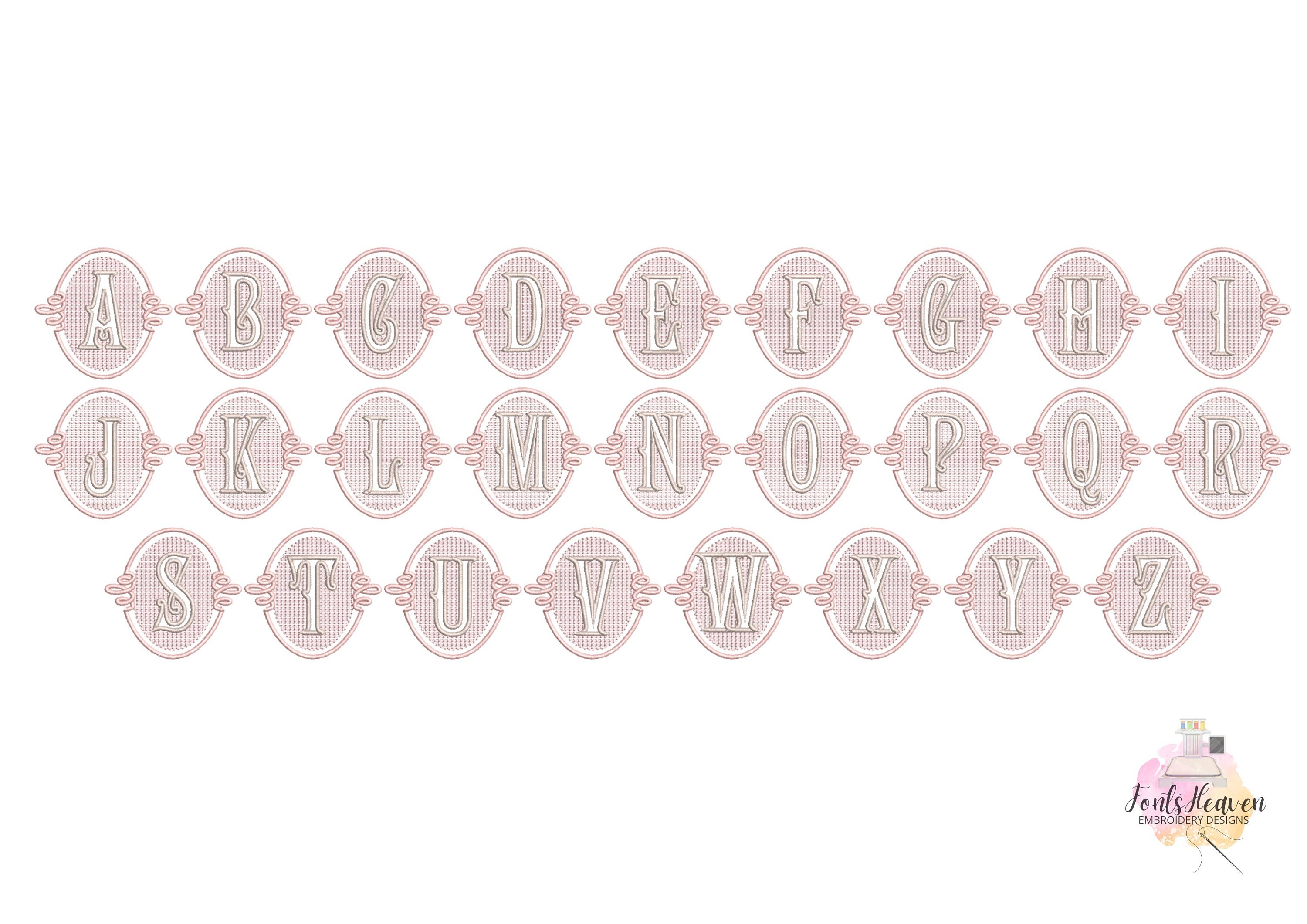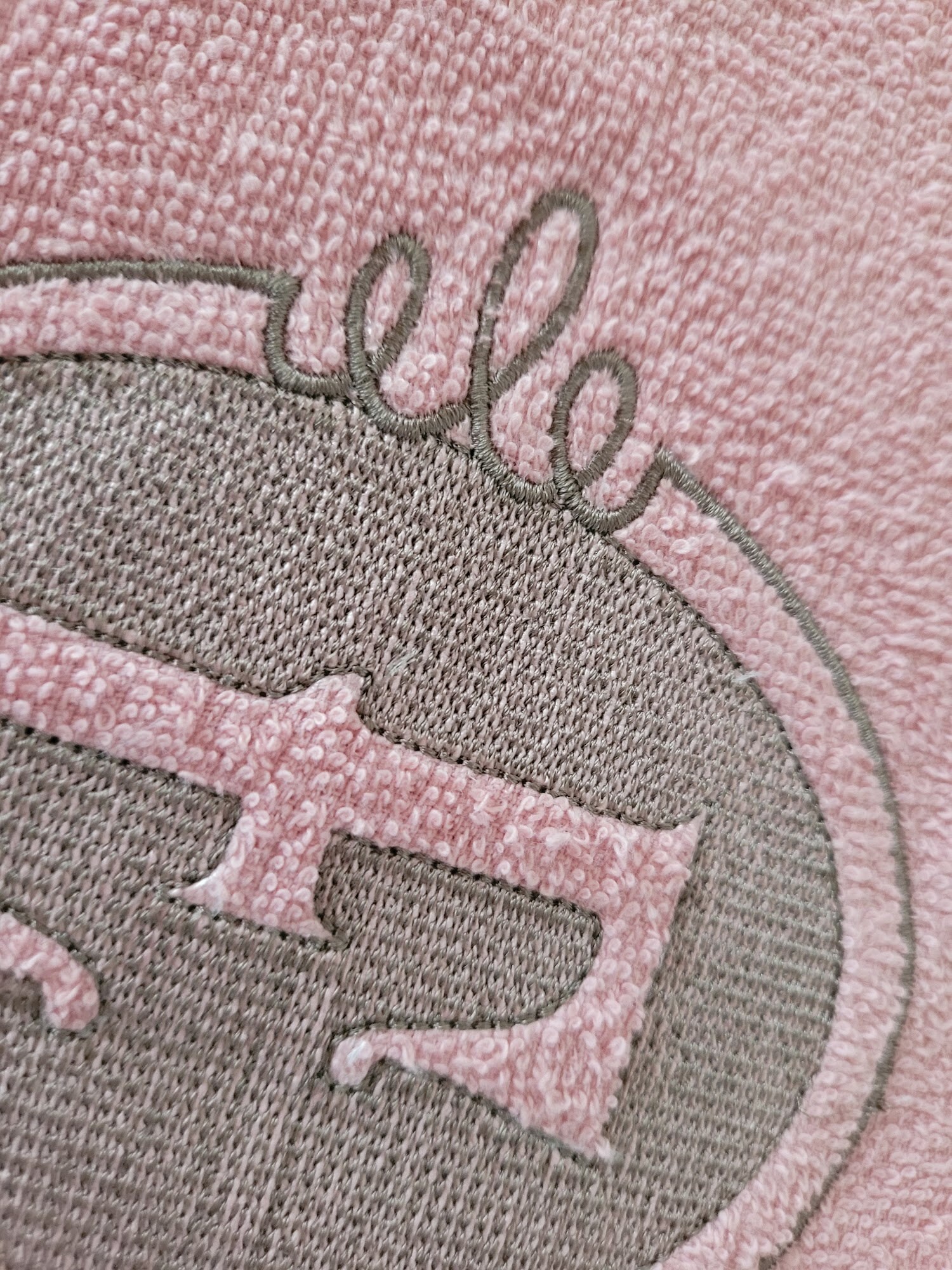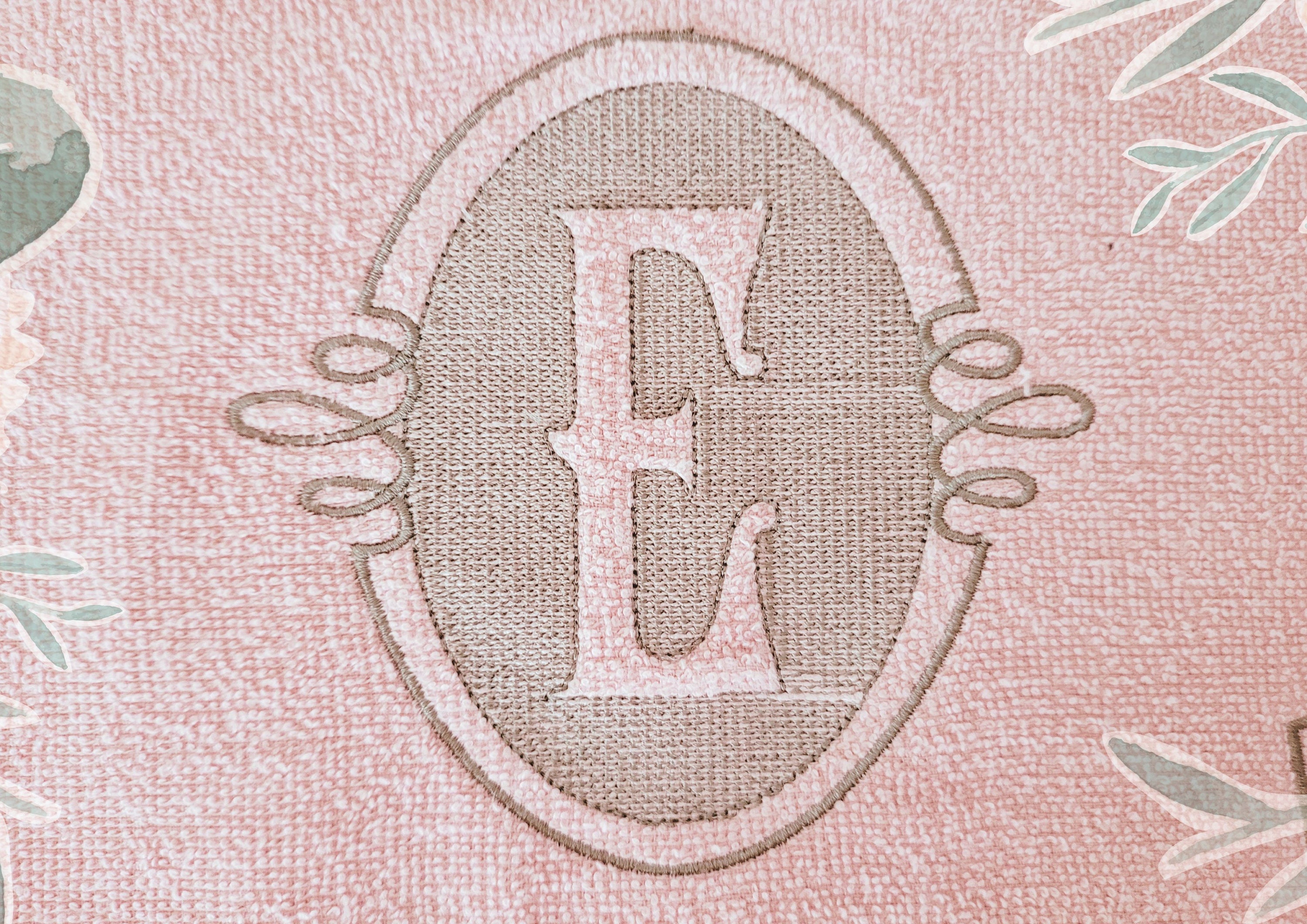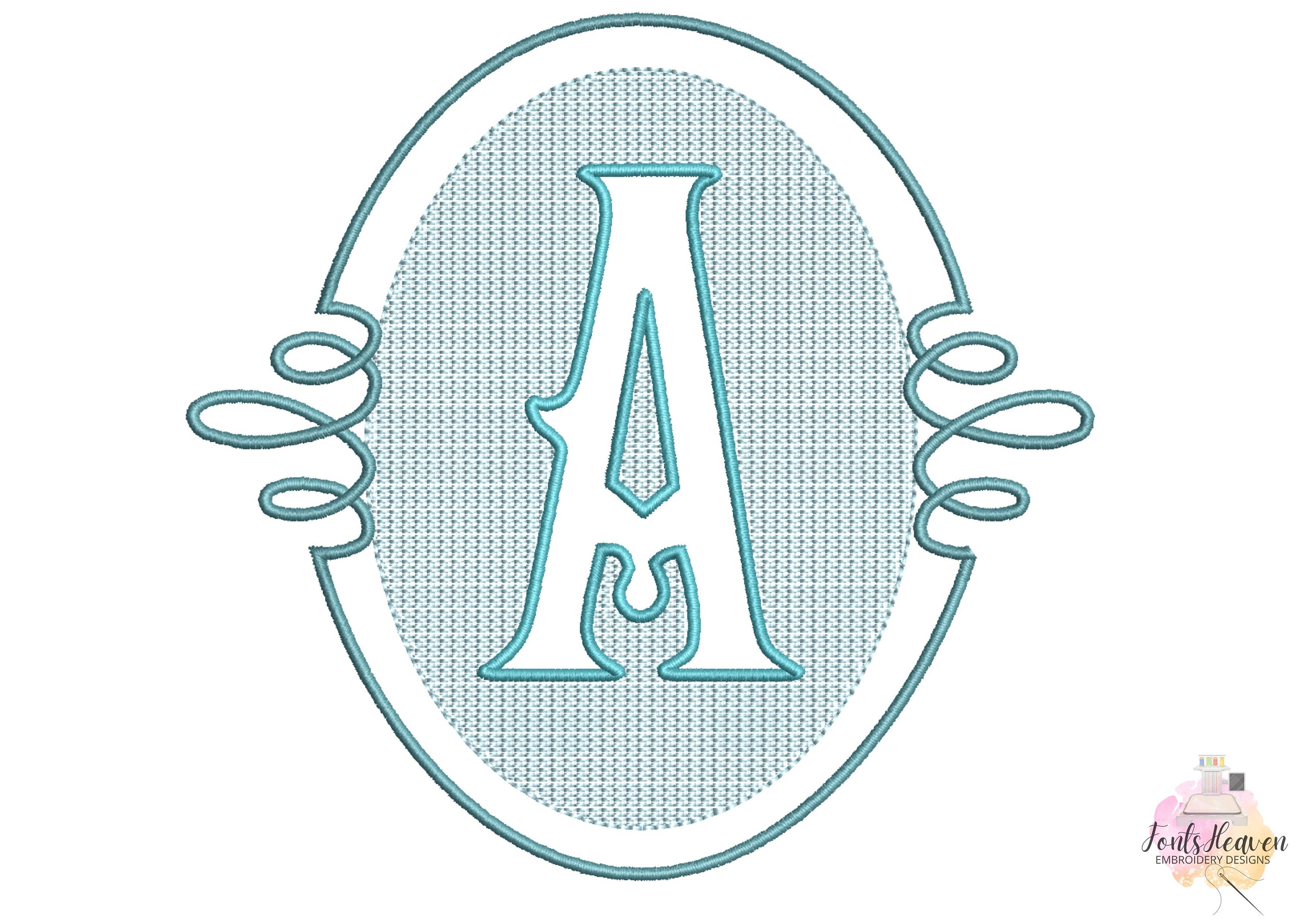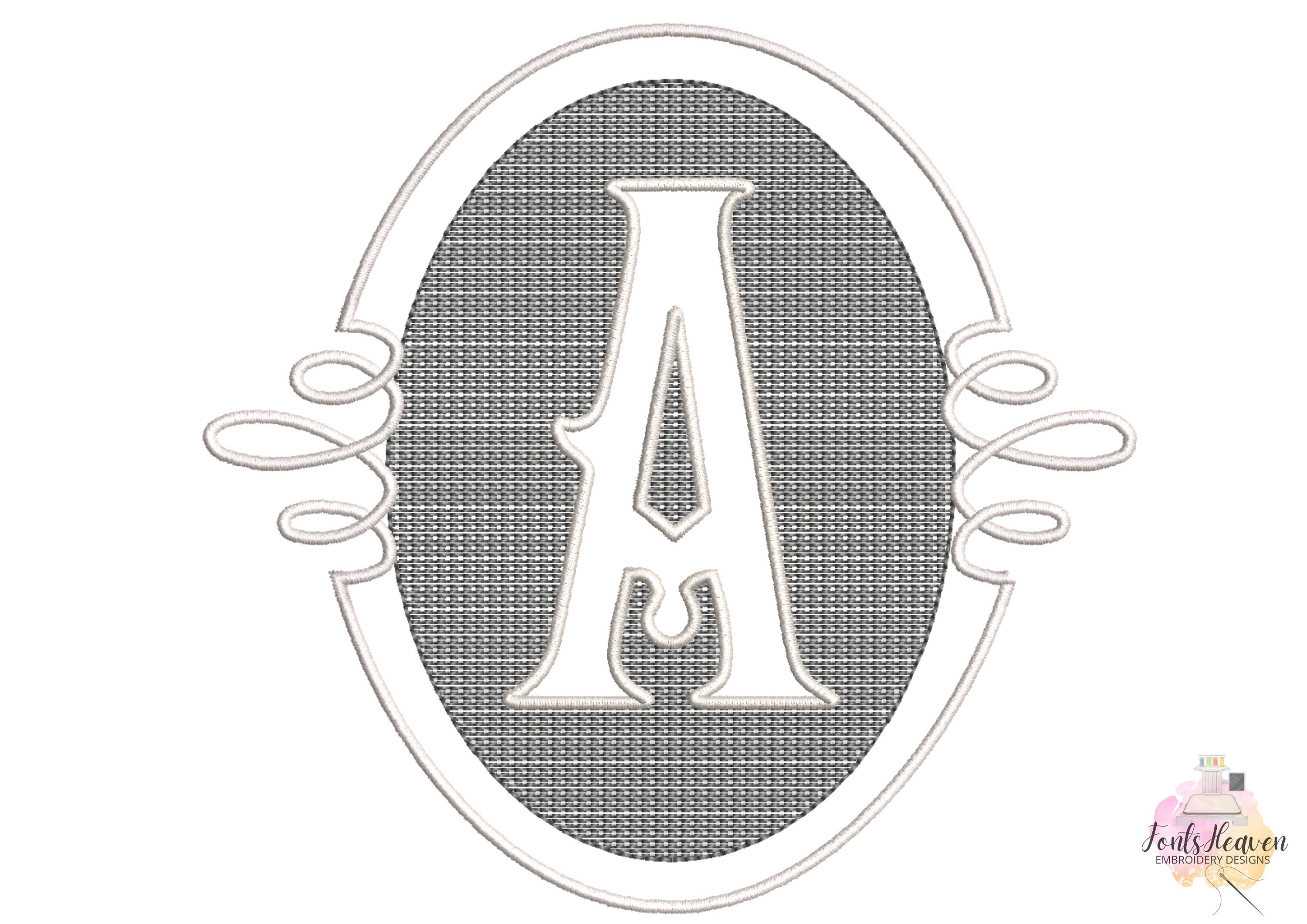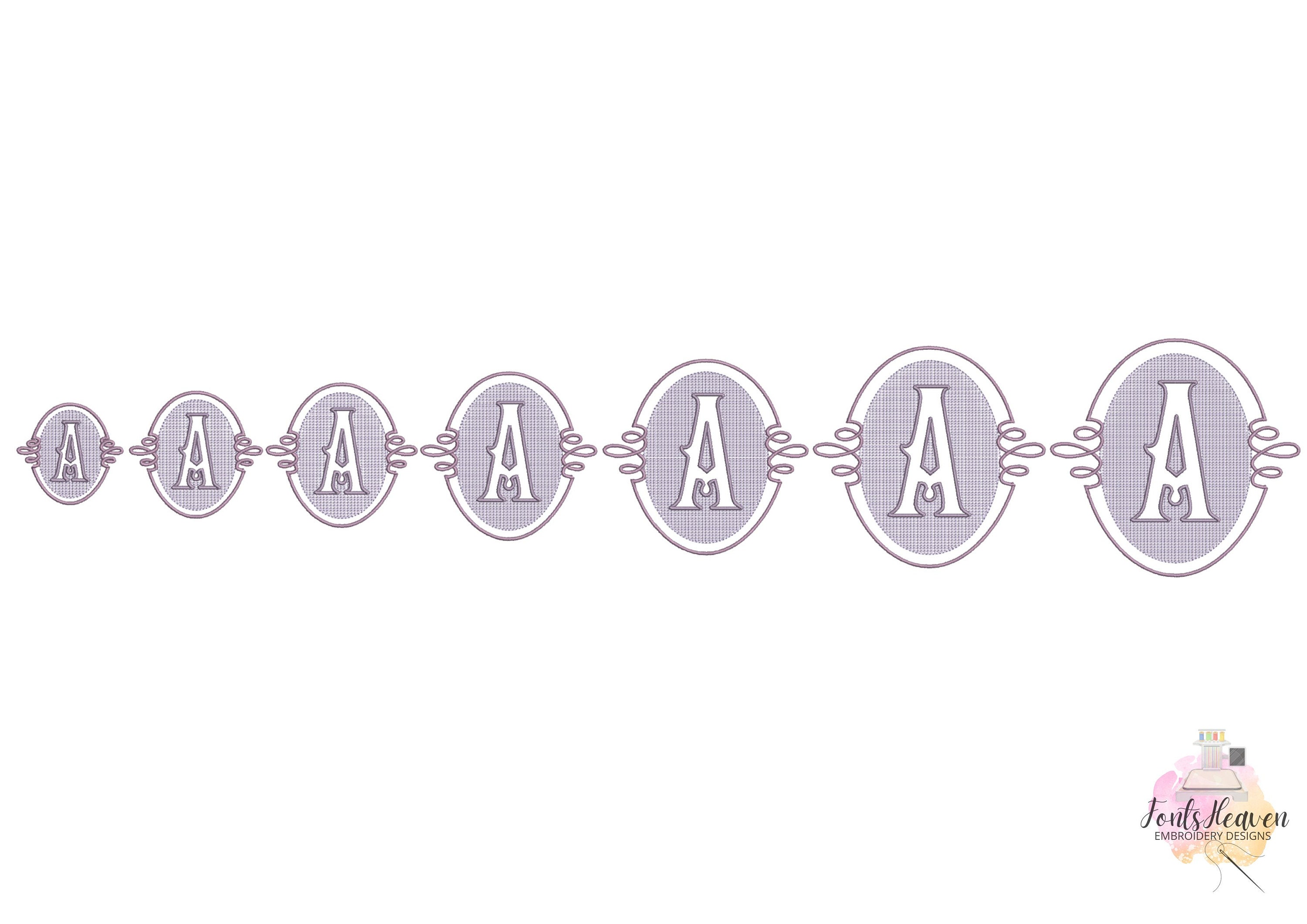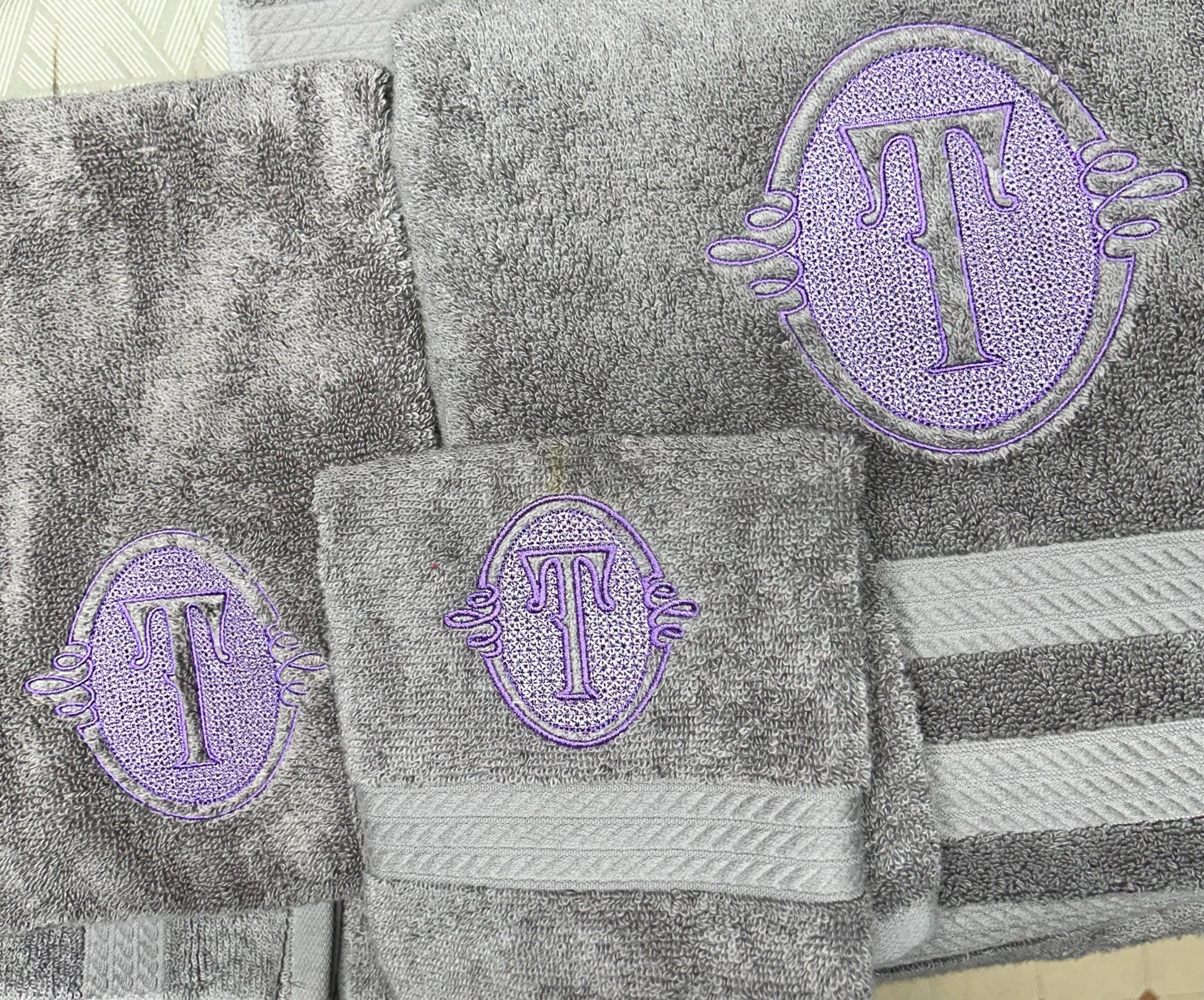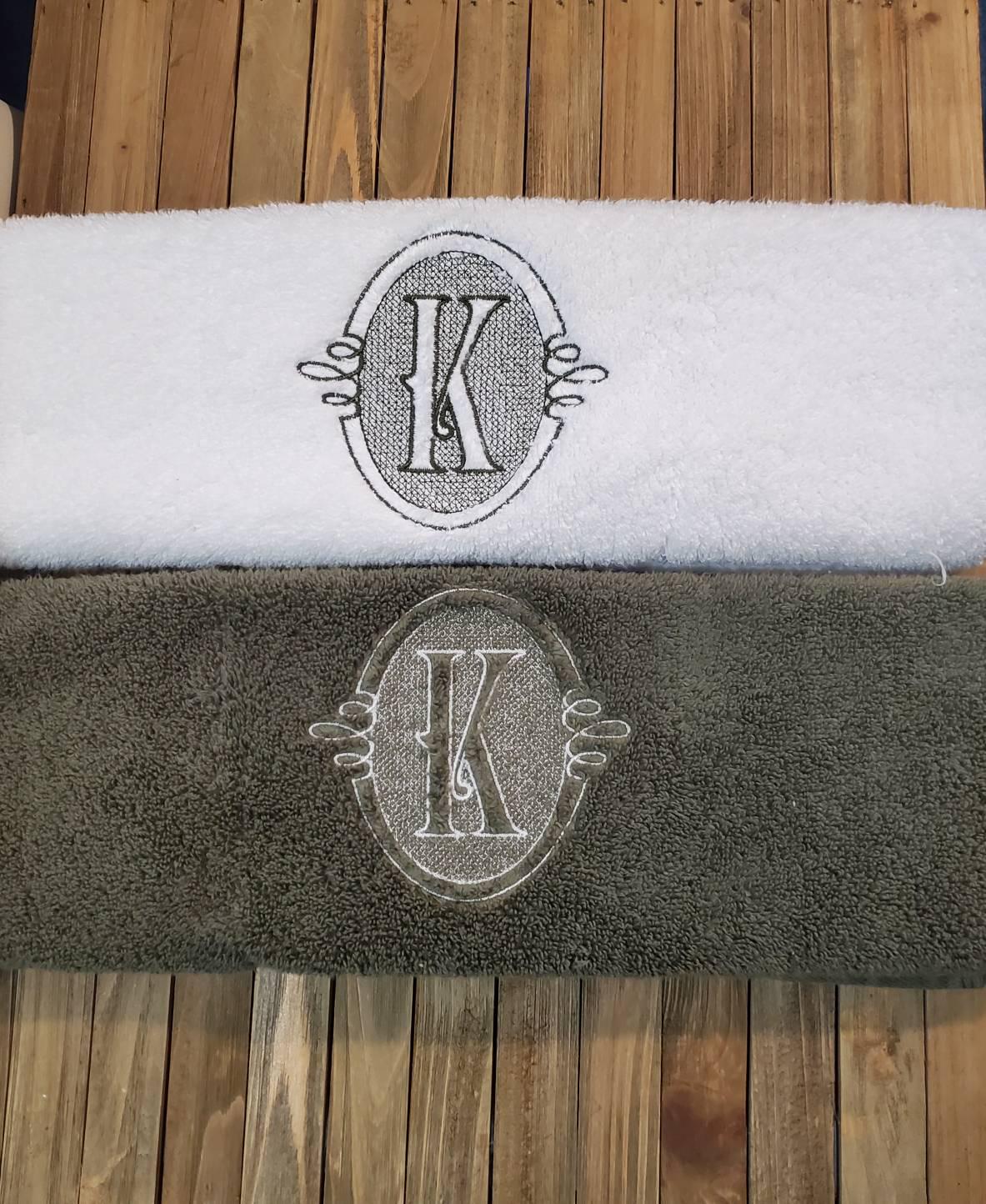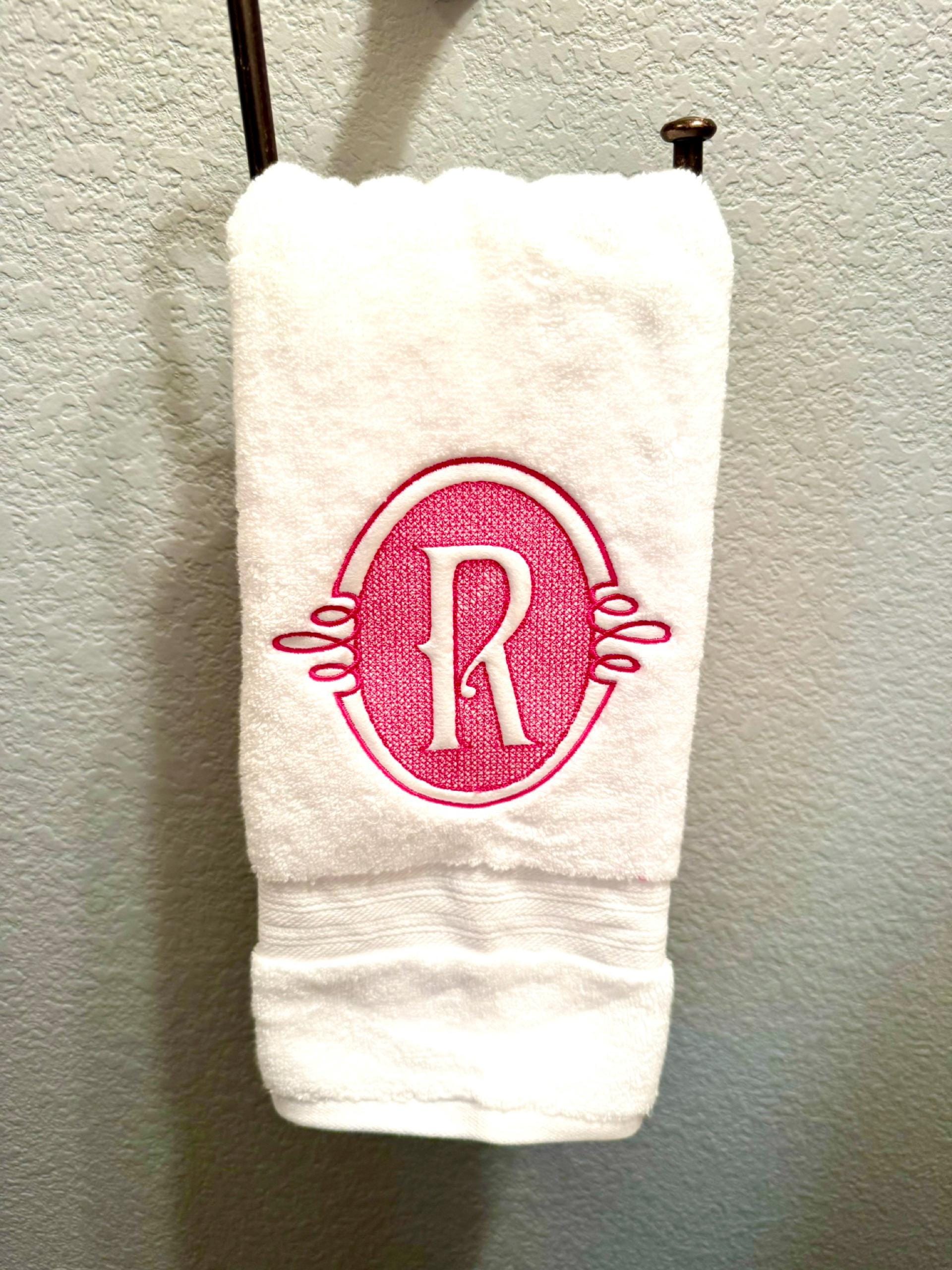
Embossed Monogram terry towel machine embroidery designs A-Z in assorted sizes personalized gift idea housewarming wedding home kids family
Very beautiful and elegant design. Spiced up regular towel makes it look more special. Anyway some embroidery machines don’t cut jumping stitches (like mine), so don’t forget to cut thread when it jumps. If you forgot it will very obvious and you can’t do anything after it finishes.